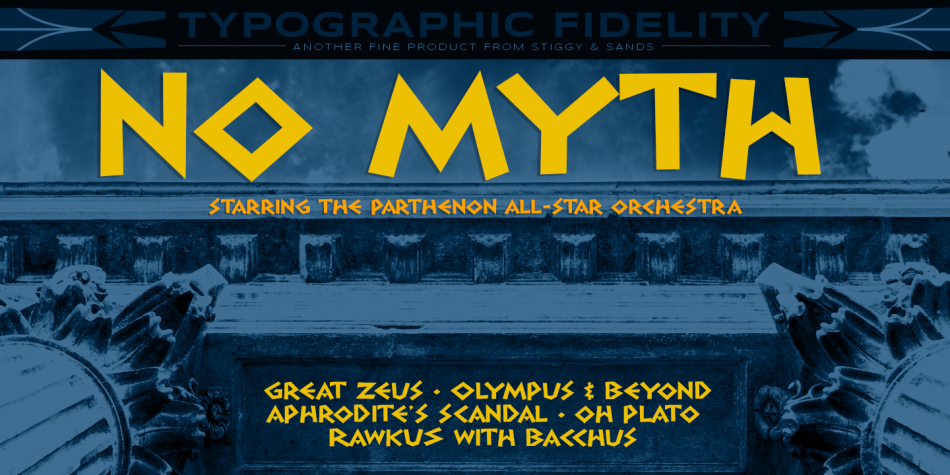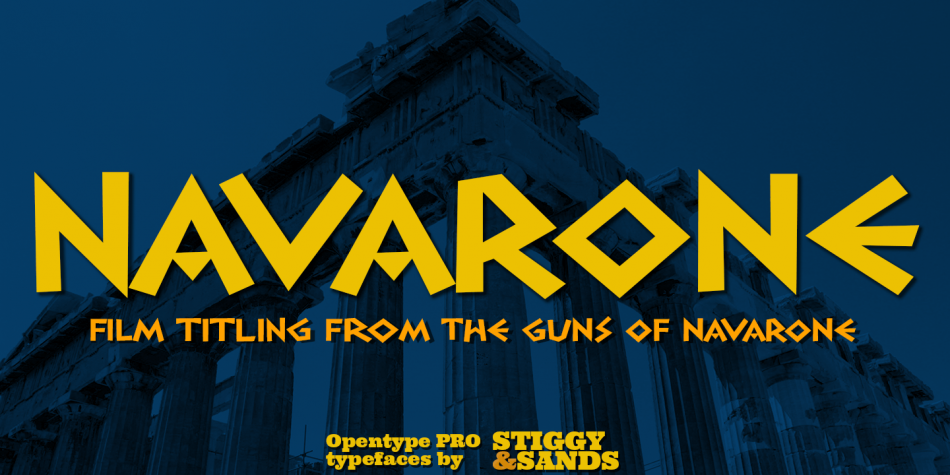
Designed by Brian J. Bonislawsky and Jim Lyles, Navarone is a display and foreign font published by Stiggy & Sands.
Navarone is a display sans typestyle that was inspired by the movie titling sequence from the 1962 movie “The Guns of Navarone”.
It’s an all capitals typeface that has alternate caps in the lowercase slots to convey all of the roman stylized lettering of the original inspiration.
Navarone comes with features for customisation options: An all capitals typeface with alternate capitals in the lowercase slots A Basic Ligatures feature that swaps out FI and FL ligatures.
Approx. 386 Character Glyph Set: Navarone comes with a glyphset that includes standard & punctuation, international language support, and basic ligatures.